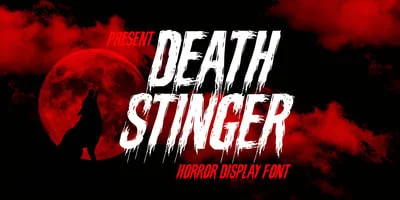
Death Stinger Horror Font
The Death Stinger Horror Font is perfect for horror movie posters, Halloween decorations, gothic book covers, metal band logos, haunted house signage, zombie apocalypse games, thriller novel titles, dark fantasy artwork, scary party invitations, and spine-chilling social media graphics.
What makes the Death Stinger Horror Font exciting is its bone-chilling ability to evoke fear and suspense through every letterform. This terrifying typeface features jagged edges, dripping effects, and distressed textures that create an atmosphere of dread and unease. Each character appears to have been carved from nightmares, with sharp angles and menacing curves that instantly grab attention and send shivers down viewers' spines.
The Death Stinger Horror Font family includes regular, condensed, outlined, and shadow variants, along with blood splatter effects and decorative skull elements that amplify its horrifying impact across different design applications.
Whether you're designing for Halloween events or creating professional horror content, Death Stinger Horror Font delivers maximum frightening impact. Its carefully crafted distressed letterforms ensure perfect readability while maintaining that essential creepy atmosphere. The font's special characters include gothic symbols, occult icons, and horror-themed glyphs that automatically enhance any dark design project. Horror enthusiasts and graphic designers consistently choose this font for projects requiring genuine scary aesthetics. The Death Stinger Horror Font transforms ordinary text into terrifying visual statements, making it an indispensable tool for any designer's horror typography arsenal.